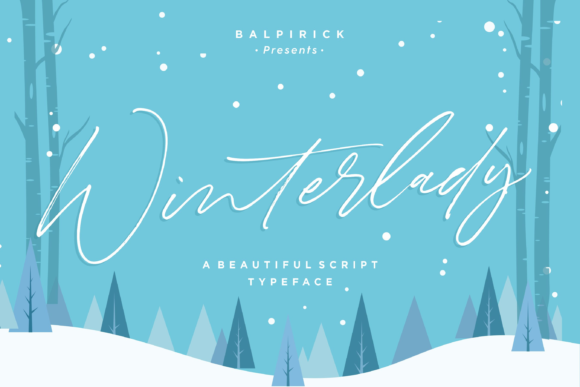
Dive into the world of podcasts with Winterlady, a script font family that weaves a compelling narrative through its captivating characters. Inspired by the timeless elegance of classic typography, Winterlady adds a touch of distinction to any creative endeavor, whispering tales of enchantment and intrigue.
Let Winterlady be your muse, unveiling a symphony of possibilities for your podcast artwork. Craft titles that dance off the screen, alluring listeners with their charm and sophistication. This enchanting font family elevates your podcast's visual presence, leaving an indelible mark on the digital landscape.
Embrace Winterlady's versatility, a font family that seamlessly adapts to your creative vision. Its graceful curves lend themselves effortlessly to headlines of all sizes, while its elegant strokes bring life to blocks of text, captivating readers with their rhythmic flow. From web designs to print publications, from moving images to captivating social media posts, Winterlady shines as a beacon of creativity, illuminating your content with an air of timeless elegance.
Winterlady's versatility extends beyond its aesthetic appeal, embracing a wide range of applications. Whether you seek to evoke a sense of nostalgia or inject a touch of whimsy, Winterlady gracefully adapts to your unique storytelling style. Share captivating tales of adventure, ignite imaginations with enchanting fables, or delve into the depths of human emotion with poignant narratives - Winterlady becomes your faithful companion, amplifying your words with its expressive charm.
Let Winterlady ignite your creative spark, guiding you towards captivating podcast artwork that resonates with your audience. Its intricate details and graceful flow create an aura of intrigue, drawing listeners into your podcast's enchanting realm. With Winterlady, your podcast transcends the ordinary, becoming an immersive experience that captivates and enchants.